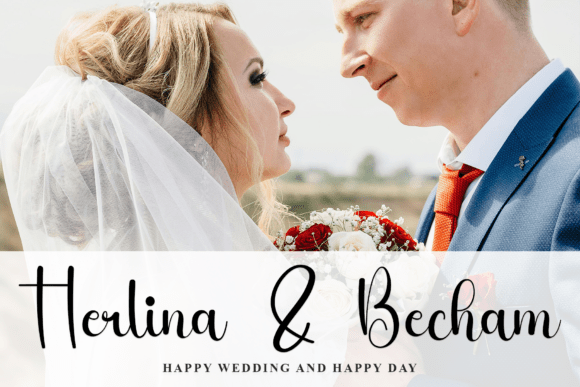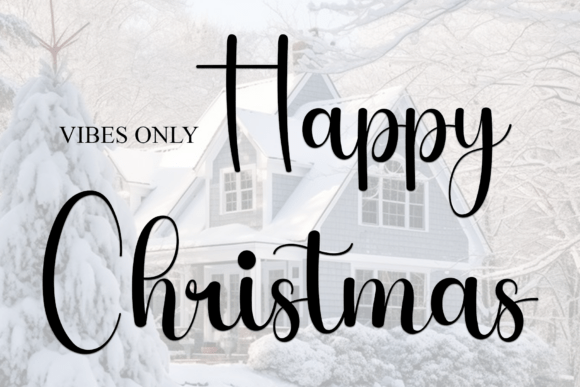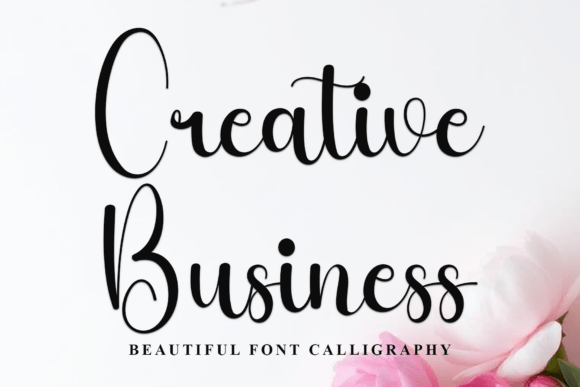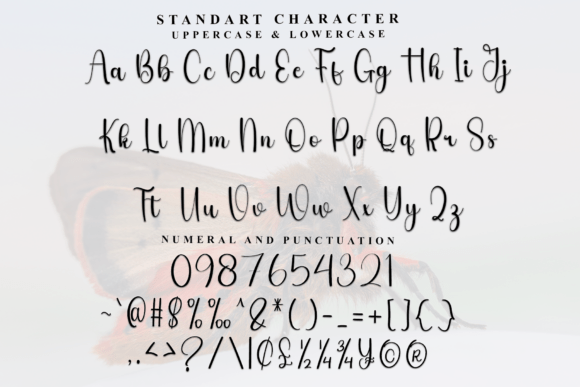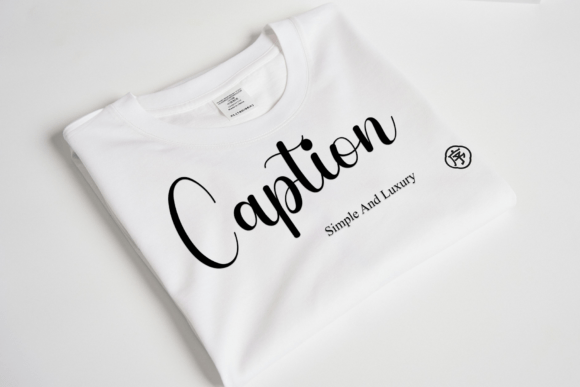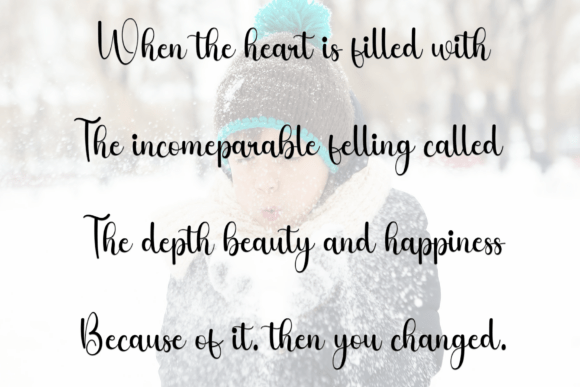
Introducing HappyAutumn Font: The Perfect Holiday Typeface
As the holiday season approaches, designers and crafters are on the lookout for the perfect typography to add a touch of magic to their projects. Look no further than HappyAutumn Font, a festive and merry typeface that captures the spirit of the holiday season. With its decorative elements and whimsical flair, HappyAutumn Font is sure to bring a cheerful and nostalgic ambiance to your words.
HappyAutumn Font is a beautifully designed typeface that embodies the joy and wonder of the holiday season. Its decorative elements, such as intricate swirls and flourishes, add a touch of enchantment to any design. Whether you’re creating greeting cards, gift tags, or holiday-themed projects, HappyAutumn Font is the perfect choice to make your typography shine.
HappyAutumn Font is specifically designed with holiday projects in mind. Its whimsical flair and festive spirit make it perfect for:
- Greeting cards: Add a personal touch to your holiday cards with HappyAutumn Font’s decorative elements and cheerful vibe.
- Gift tags: Make your gifts stand out with HappyAutumn Font’s unique and festive typography.
- Holiday-themed projects: From invitations to party decorations, HappyAutumn Font is the perfect choice to add a touch of holiday magic to your designs.
Bringing a Cheerful and Nostalgic Ambiance
HappyAutumn Font is more than just a typeface – it’s an experience. Its cheerful and nostalgic ambiance is sure to evoke memories of holidays past and create a sense of excitement for the season ahead. With HappyAutumn Font, you can:
- Create a sense of wonder and magic in your designs.
- Evoke feelings of nostalgia and warmth in your audience.
- Add a touch of personality and whimsy to your typography.